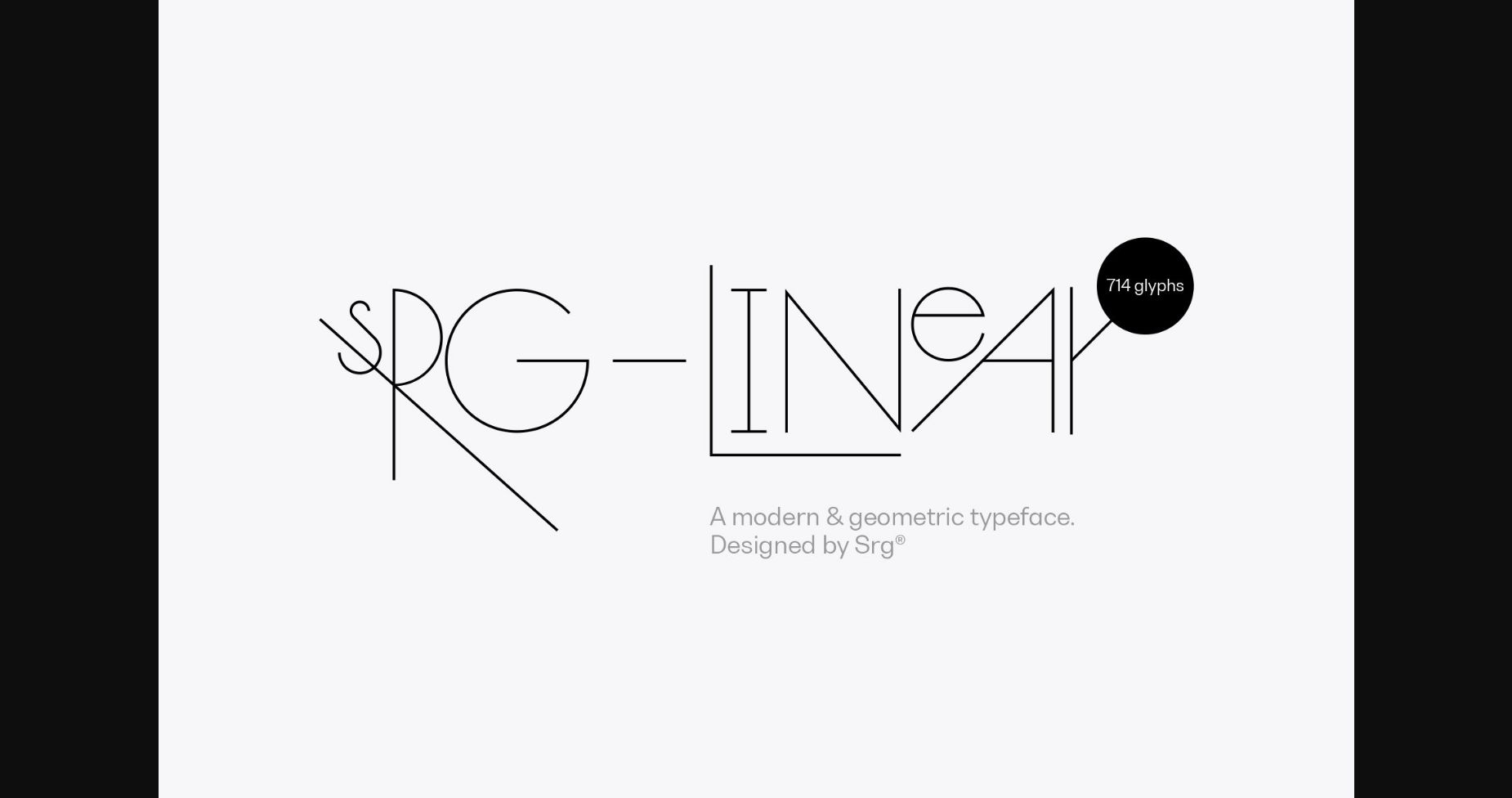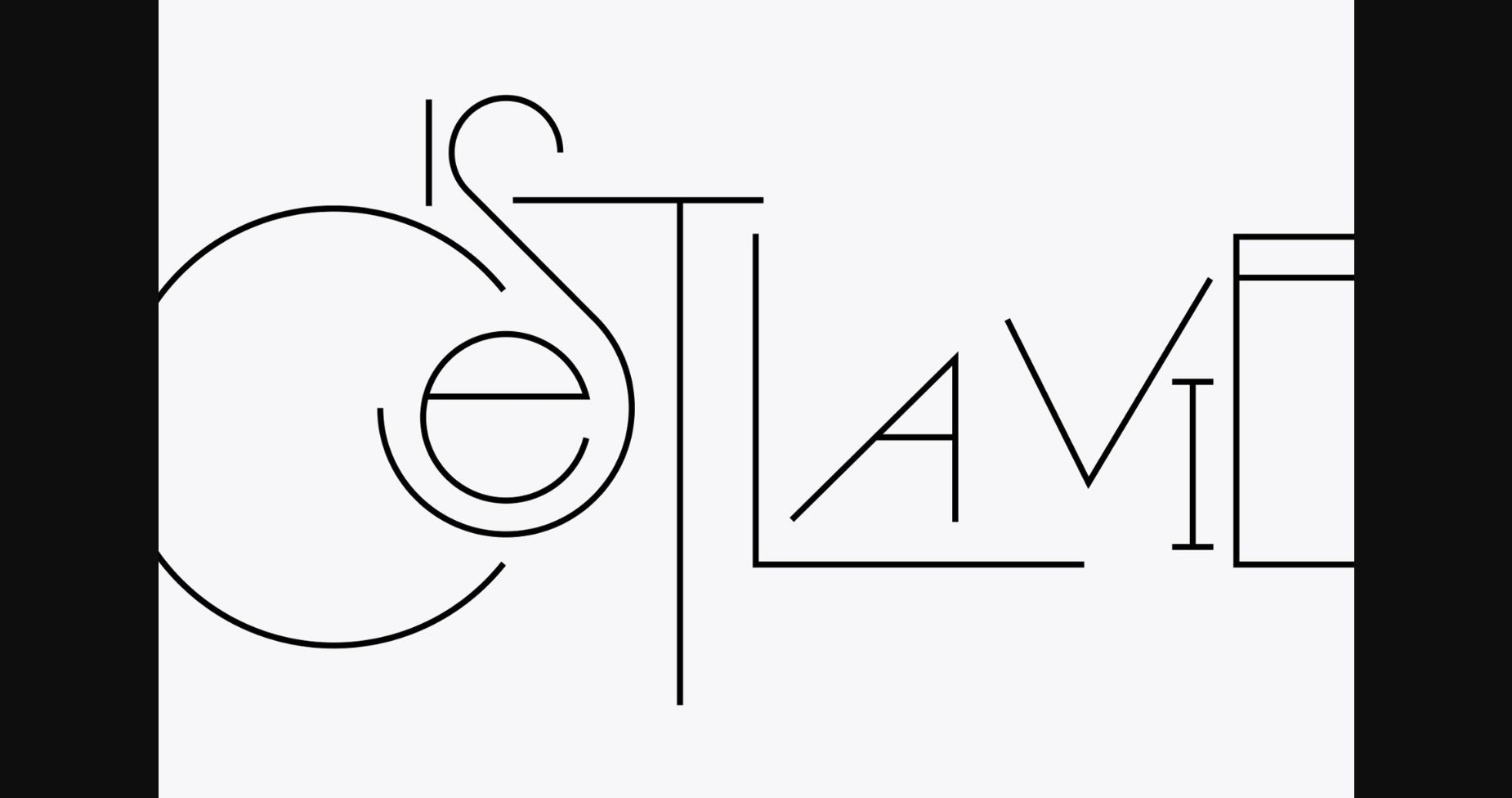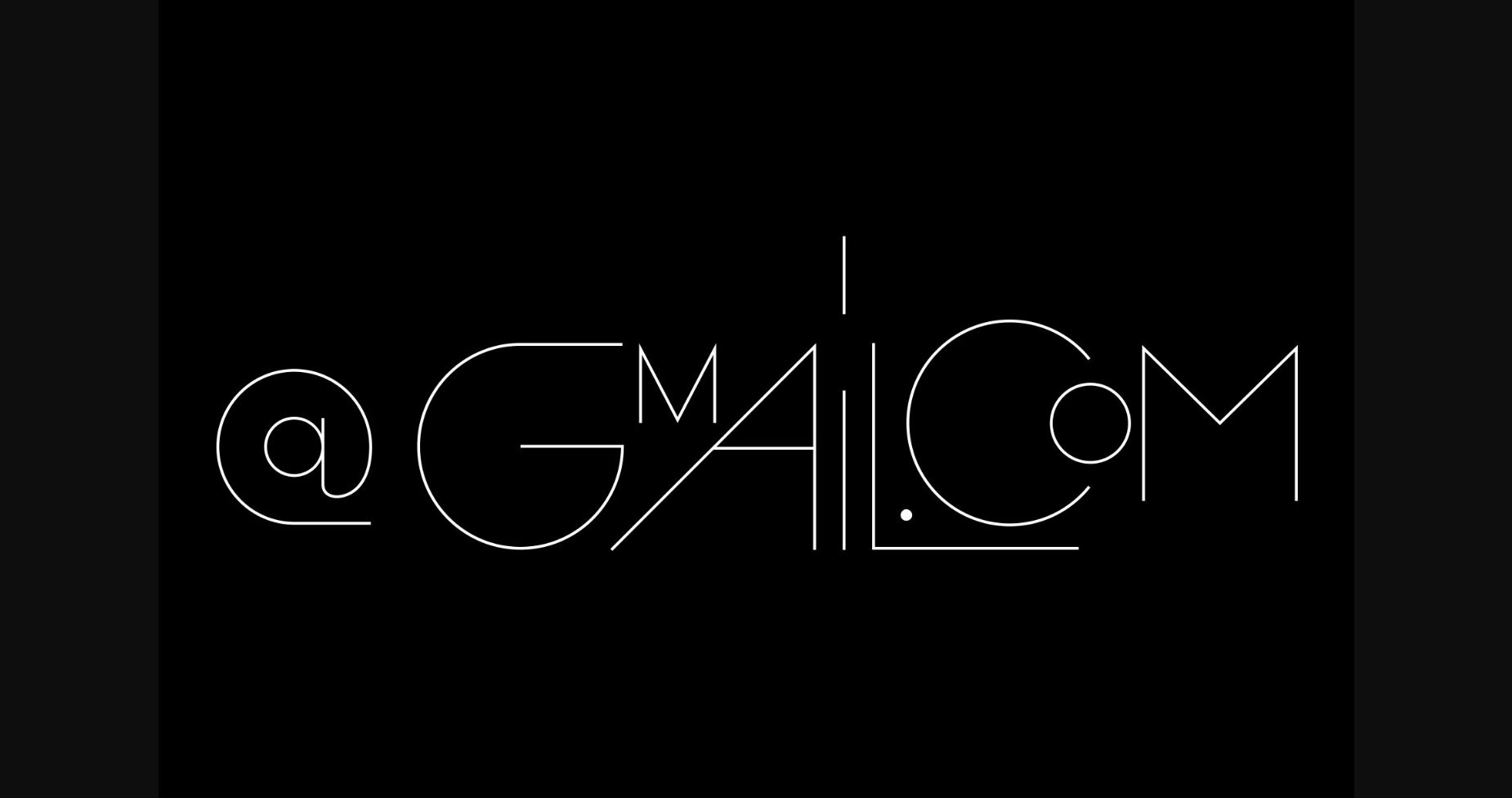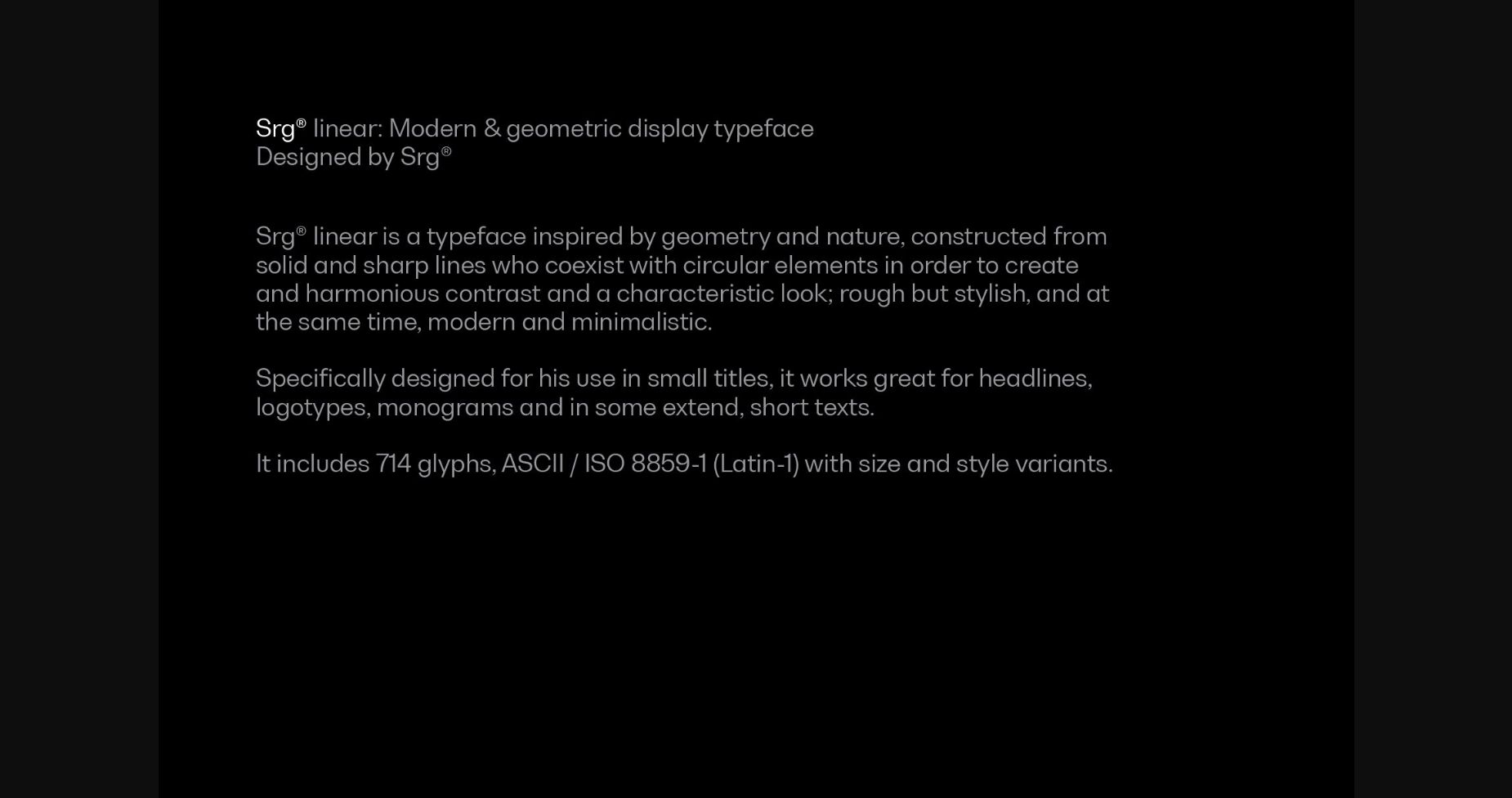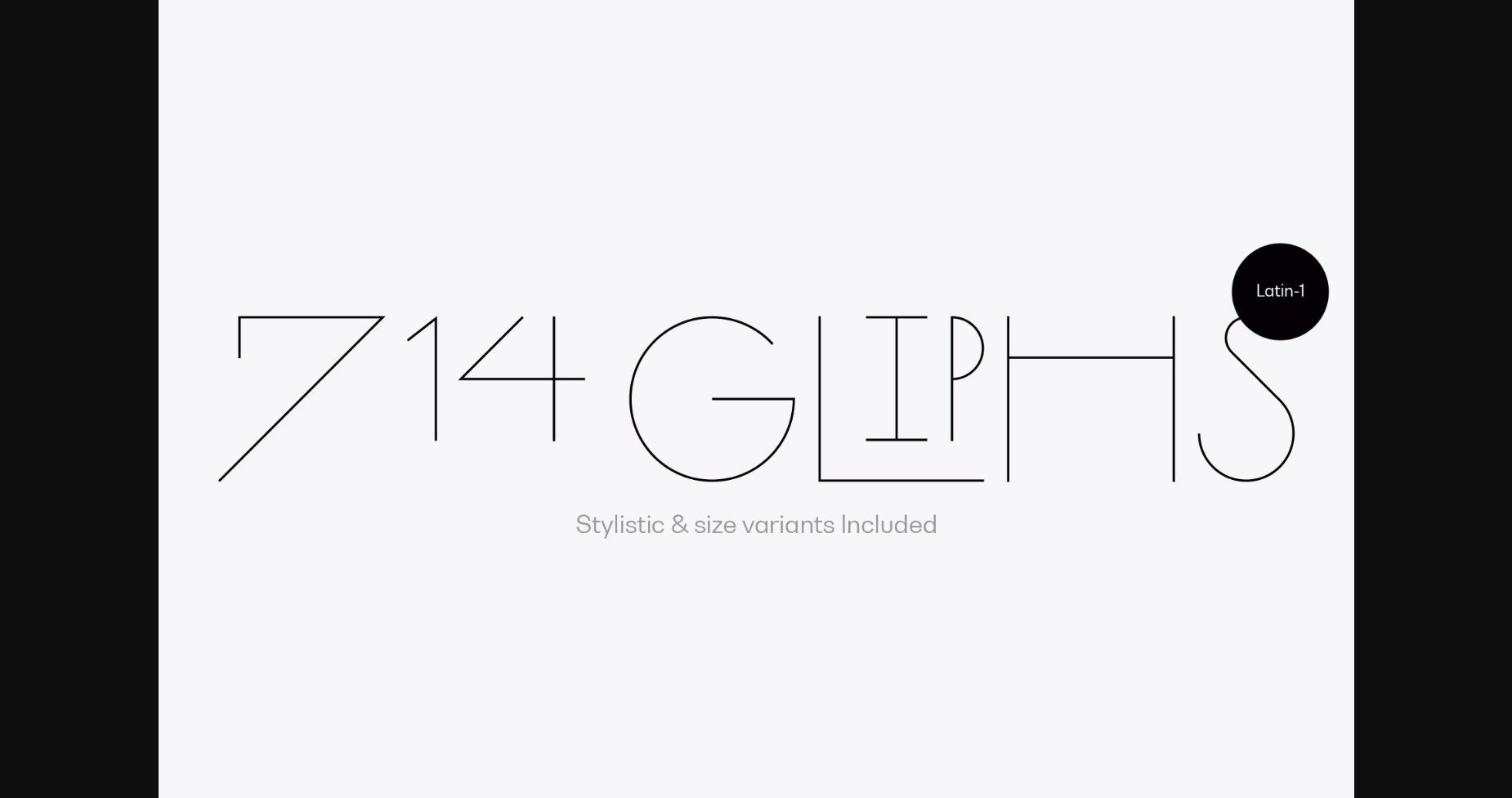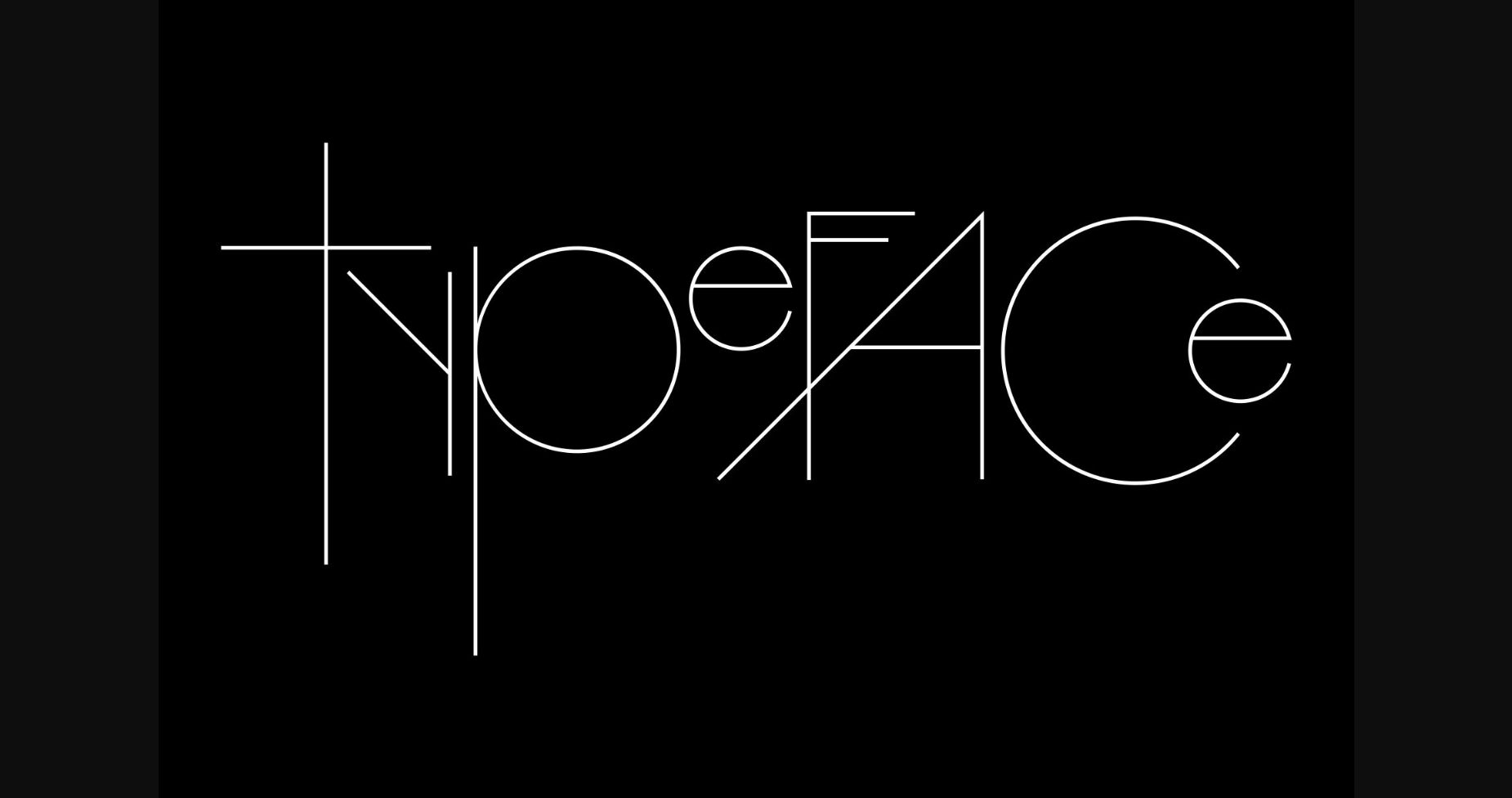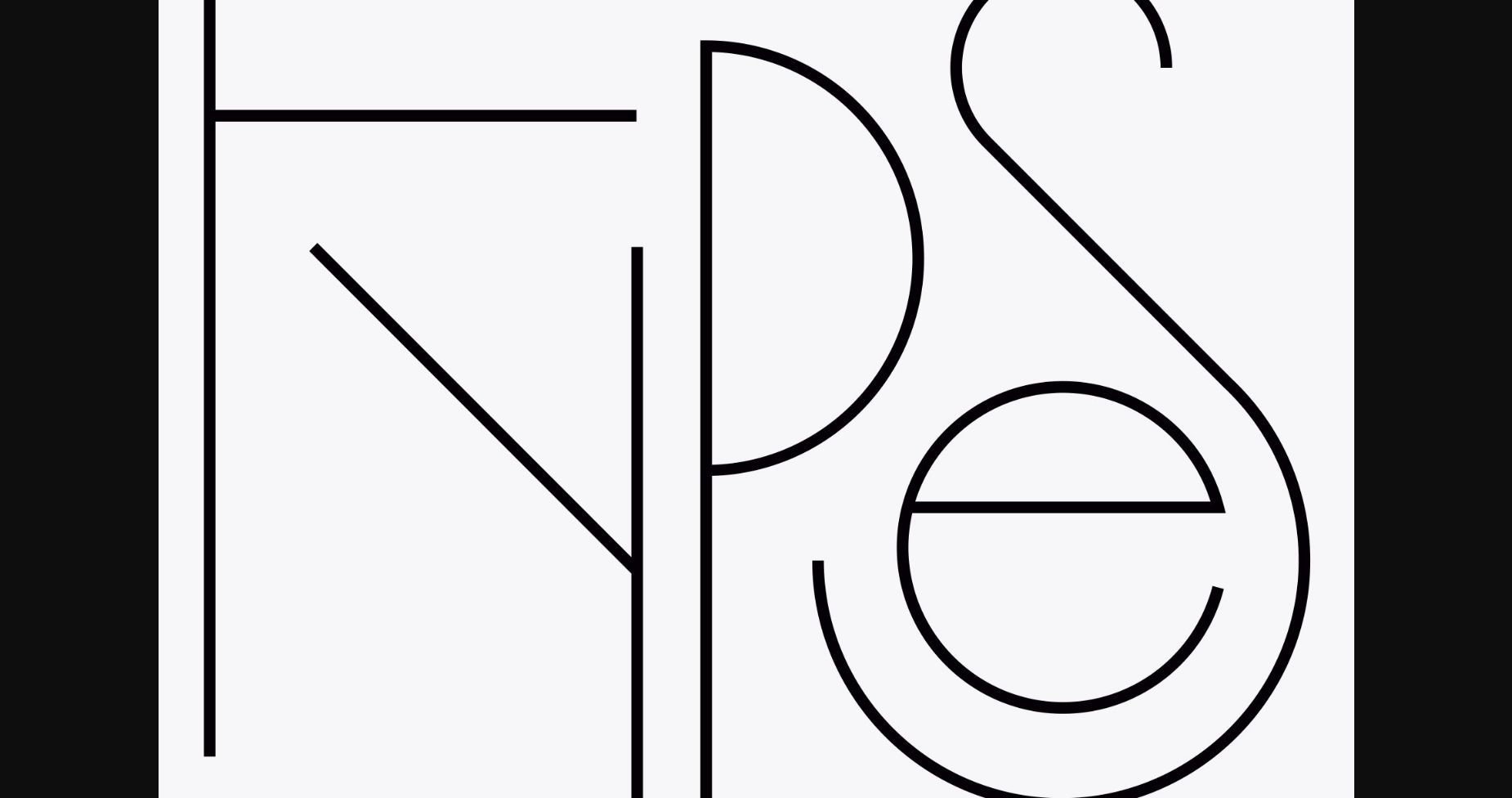
About Srg Linear Font
SrgĀ® linear is a cool sans serif font inspired by geometry and nature. It was constructed from solid and sharp lines that coexist with circular elements in order to create and harmonious contrast and a characteristic stylish look and feel.
Specifically designed for display use, great for titles, logotypes, monograms, and short texts.